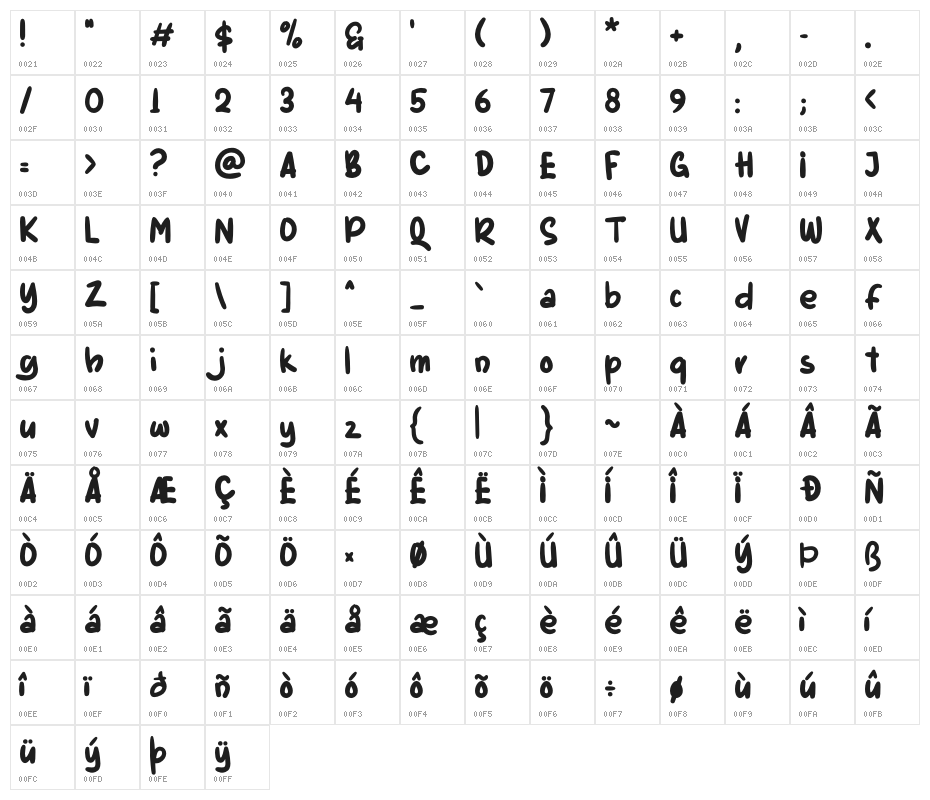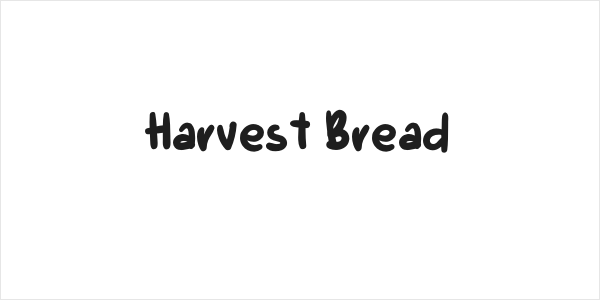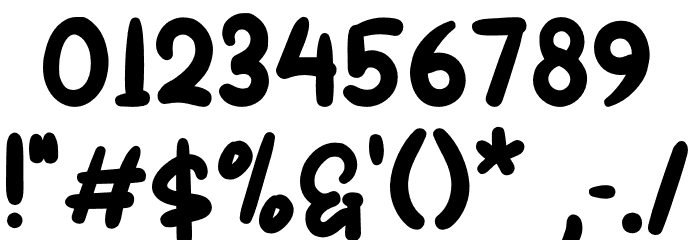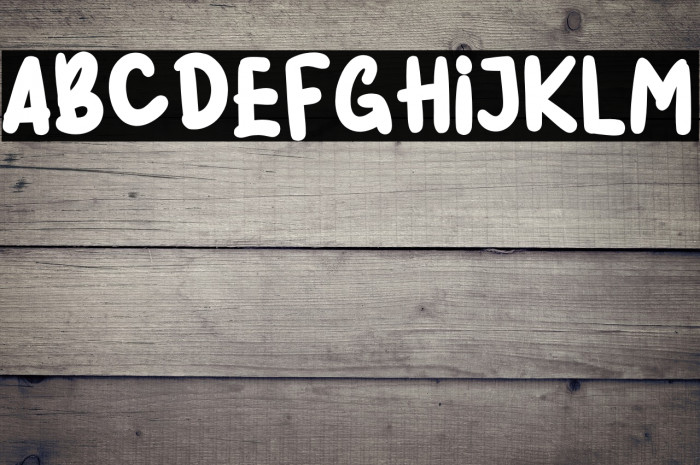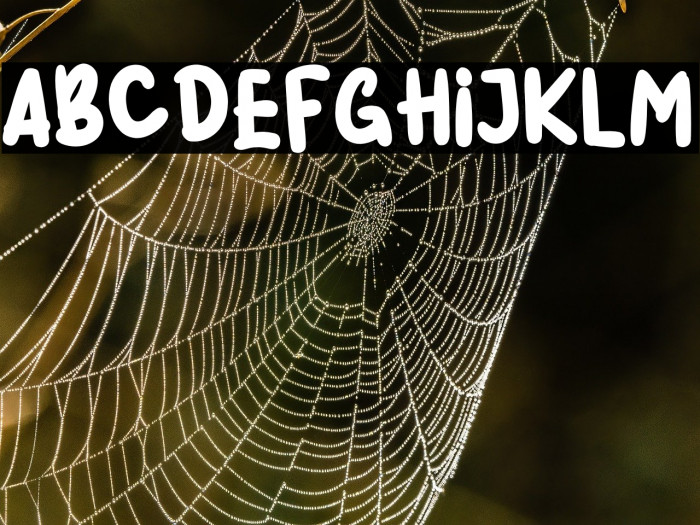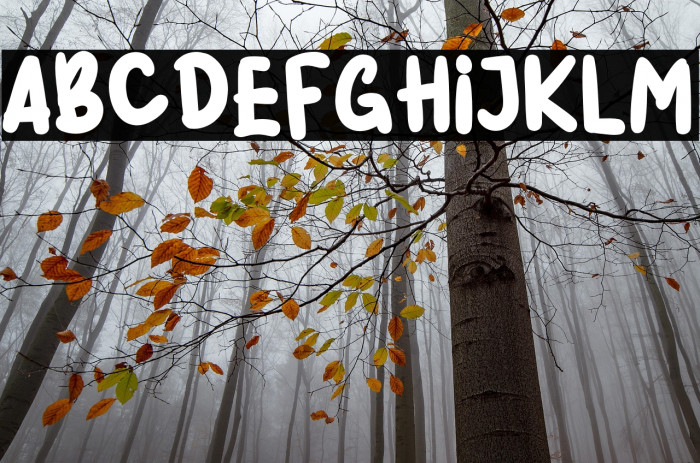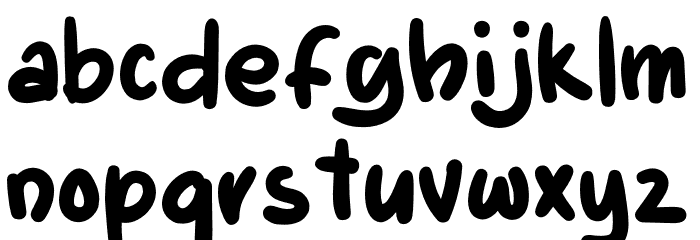
Harvest Bread Font
Harvest Bread Description
This font features a playful and bold handwritten style, characterized by its rounded and slightly irregular letterforms. The uppercase and lowercase letters maintain a consistent thickness, giving it a cohesive appearance. The numbers and special characters follow the same playful design, making it suitable for informal and creative projects. The font's overall look is friendly and approachable, with a touch of whimsy that adds personality to any text. Its bold strokes ensure readability, while the rounded edges soften the overall impact, making it ideal for projects that require a casual and fun aesthetic.
| Proposed Projects | Ideal for children's books, playful branding, greeting cards, and social media graphics. |